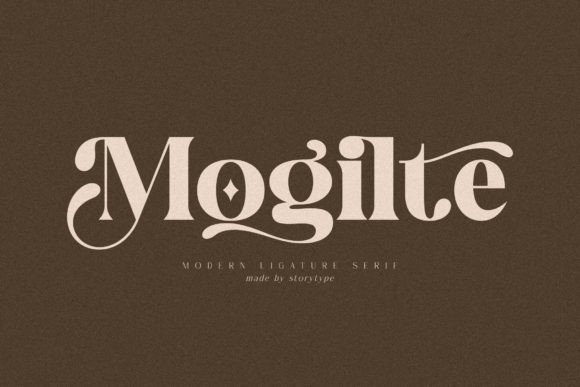
Immerse yourself in a world of timeless elegance and sophistication with Mogilte Font, a typographic masterpiece that exudes both modernity and classicism. Crafted with meticulous precision by Storytype Studio, this serif font boasts a distinctive style that captures the essence of luxury and grace.
As you explore the depths of Mogilte's glyphs, you'll discover a treasure trove of typographic artistry. Each character, meticulously designed with delicate curves and sharp edges, reflects the passion and dedication of its creators. Mogilte's unique personality shines through in every letterform, offering endless possibilities for creative expression.
Picture your designs adorned with Mogilte's refined curves and graceful serifs. Whether you're crafting an elegant logo, a captivating book or movie title, or a high-end fashion brand, Mogilte's presence will elevate your work to new heights of sophistication. Its versatility extends to magazines, clothing lines, lettering, and captivating quotes, adding a touch of timeless beauty to any project.